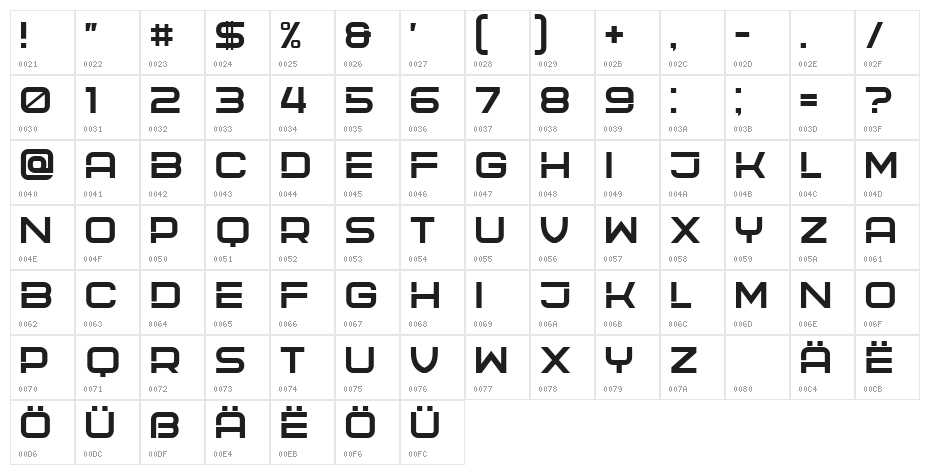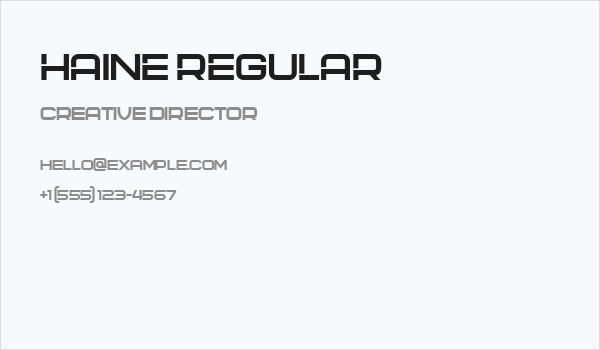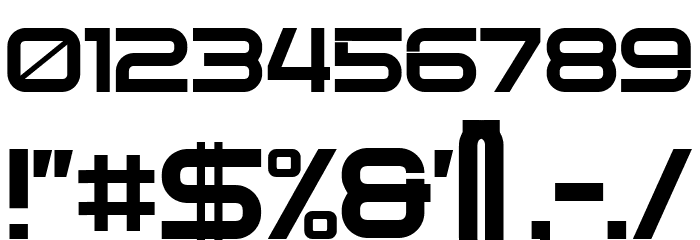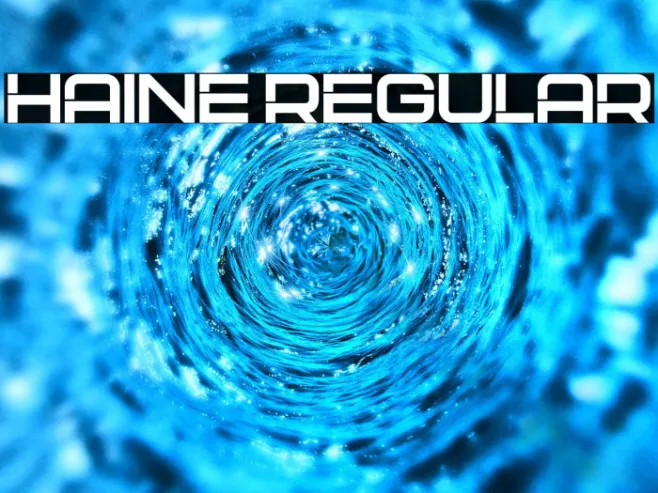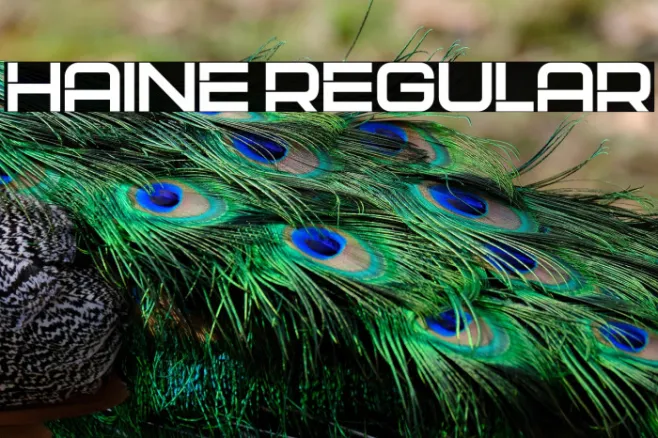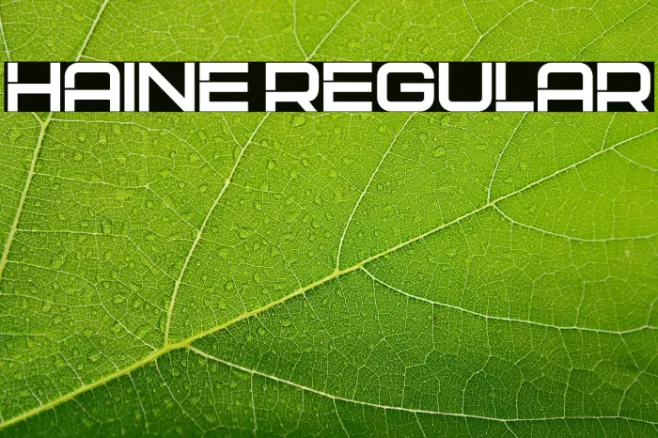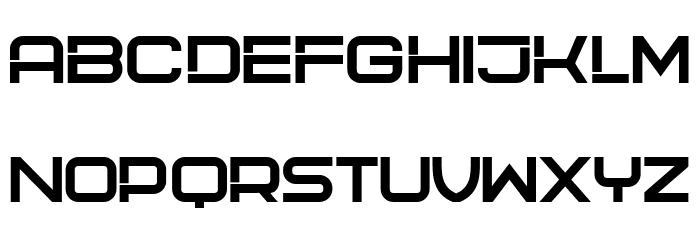
Haine Regular Font
Haine Regular Description
This font features a bold and geometric design with a strong emphasis on angular shapes and clean lines. The uppercase letters are uniform in height, creating a cohesive and structured appearance. The numerals and special characters maintain the same boldness, ensuring consistency across all glyphs. The font's modern aesthetic is highlighted by its sharp edges and minimalistic style, making it suitable for contemporary design projects. Its distinct and assertive look is ideal for making a statement in any visual composition.
| Proposed Projects | Ideal for branding, posters, headlines, and modern digital interfaces. |